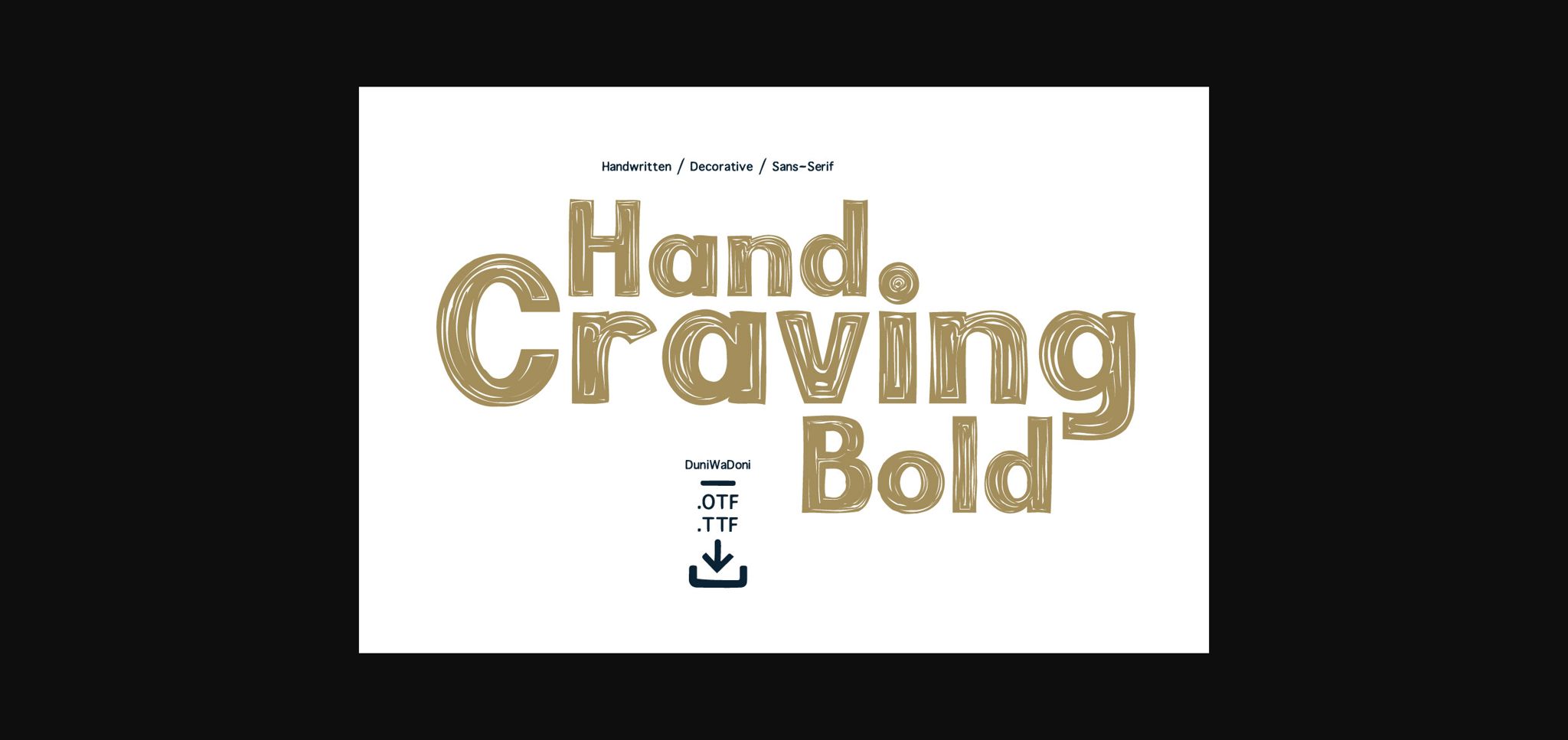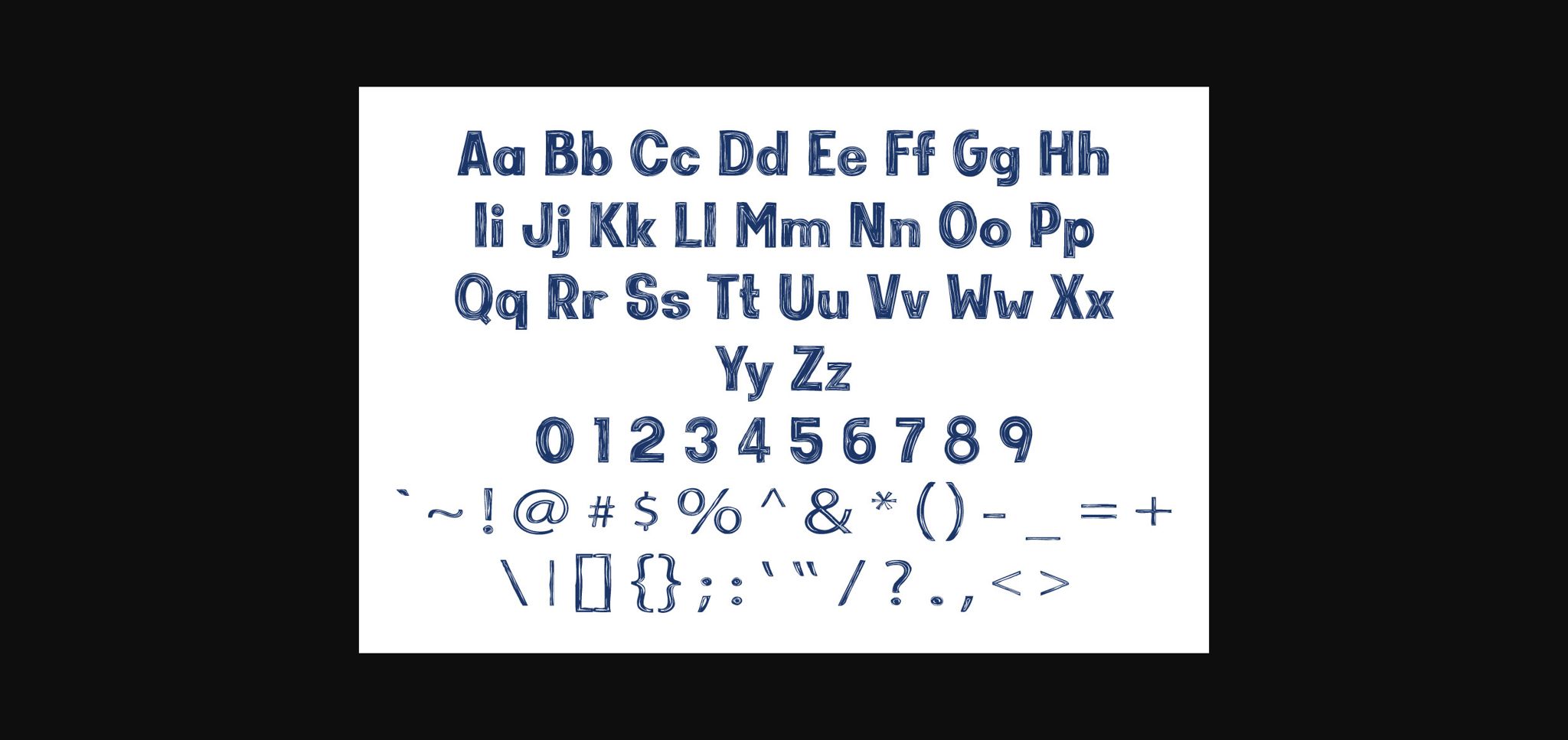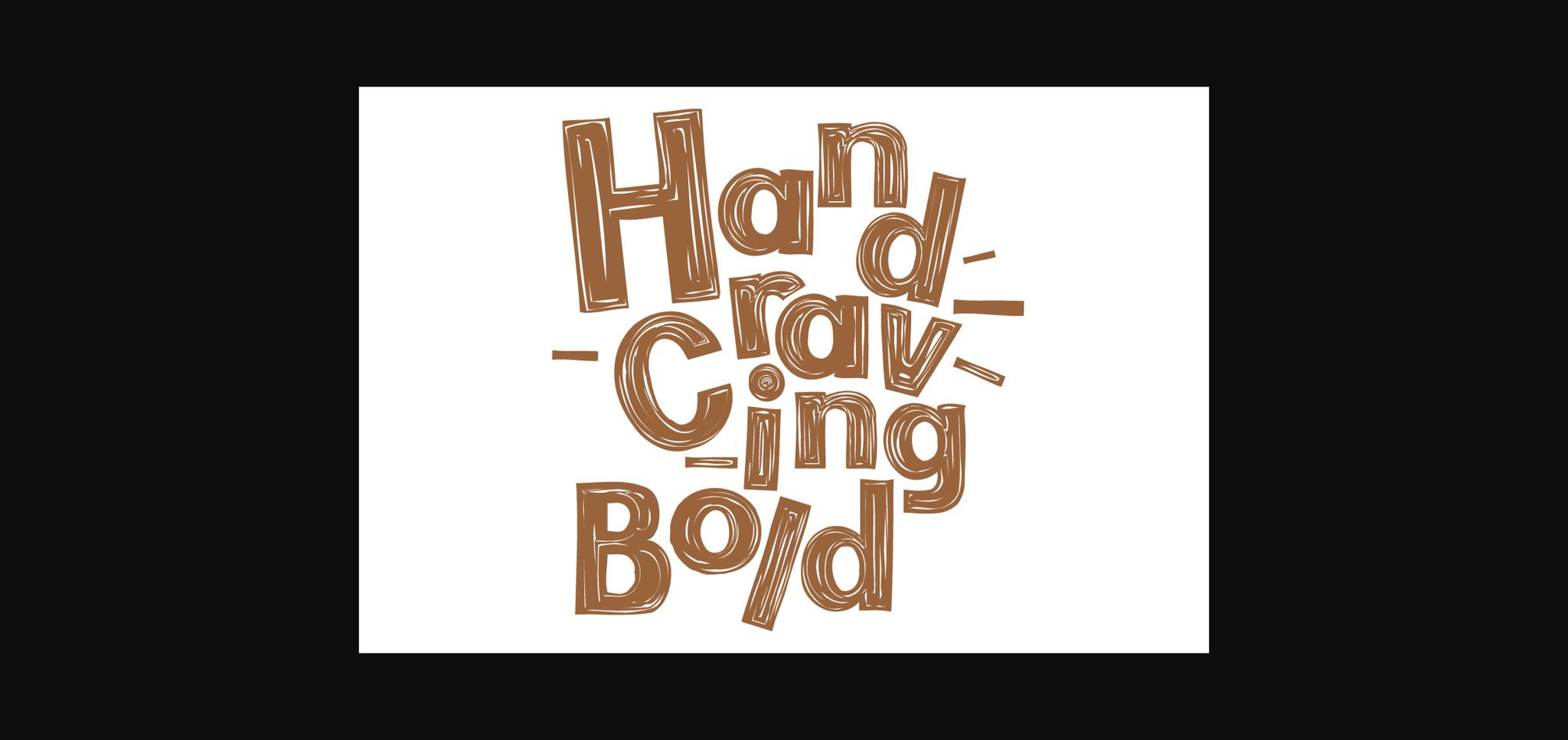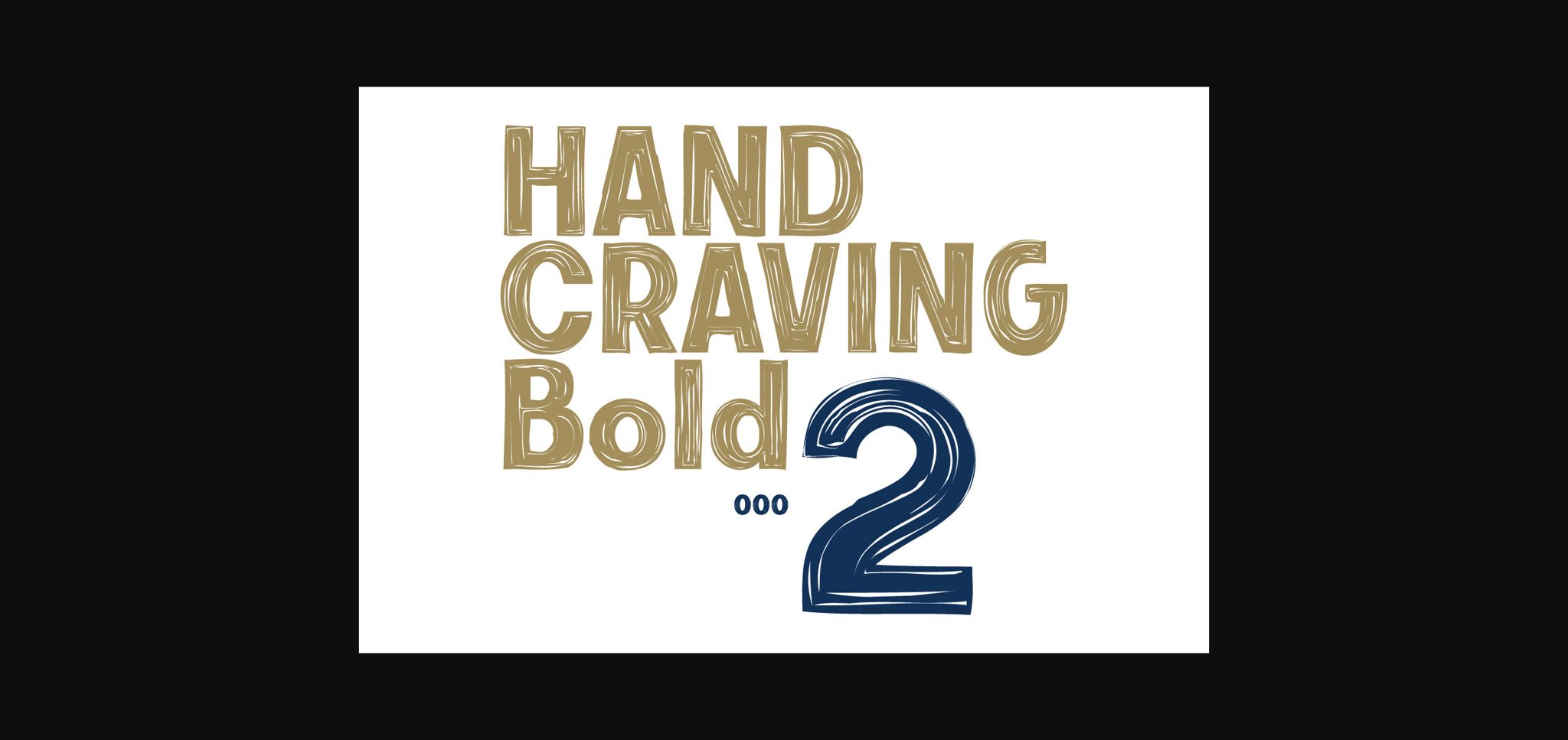
About Hand Craving Bold Font
Hand Craving Bold is a striking handwritten sans-serif decorative font. Its bold and distinctive strokes add a unique touch to your designs, making a strong statement with every character. Perfect for adding a touch of creativity and emphasis to your projects.